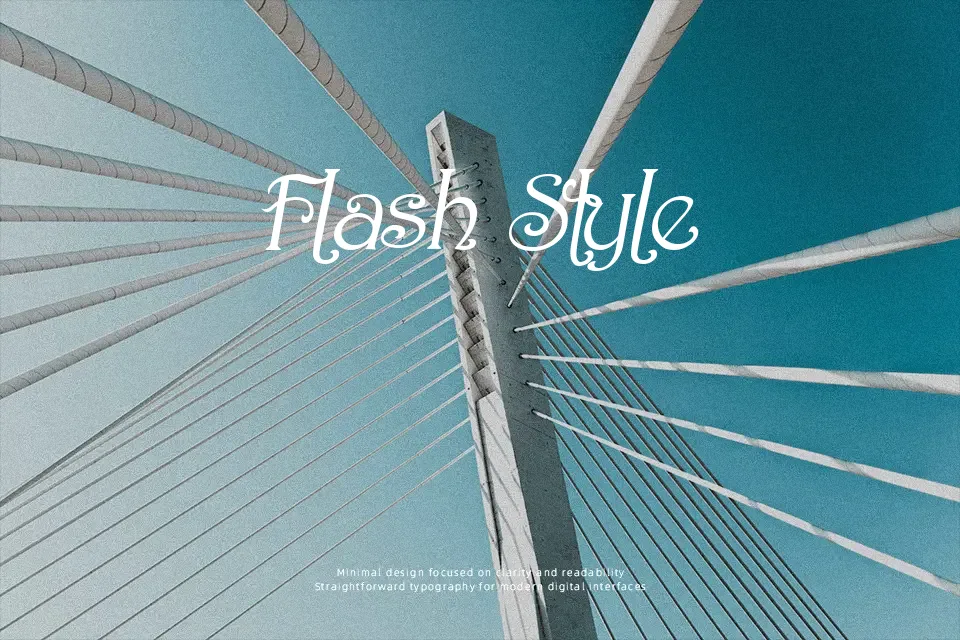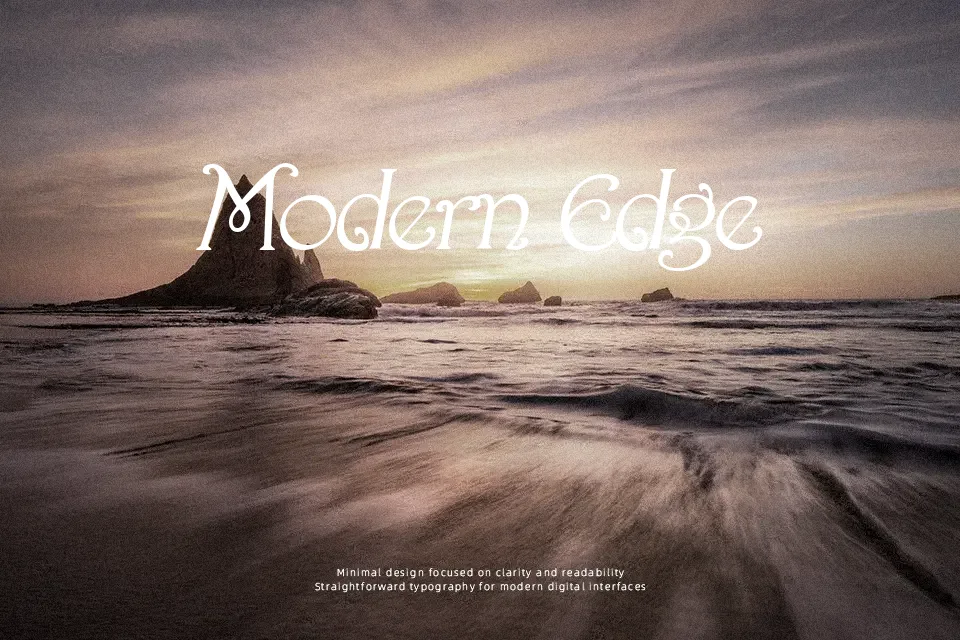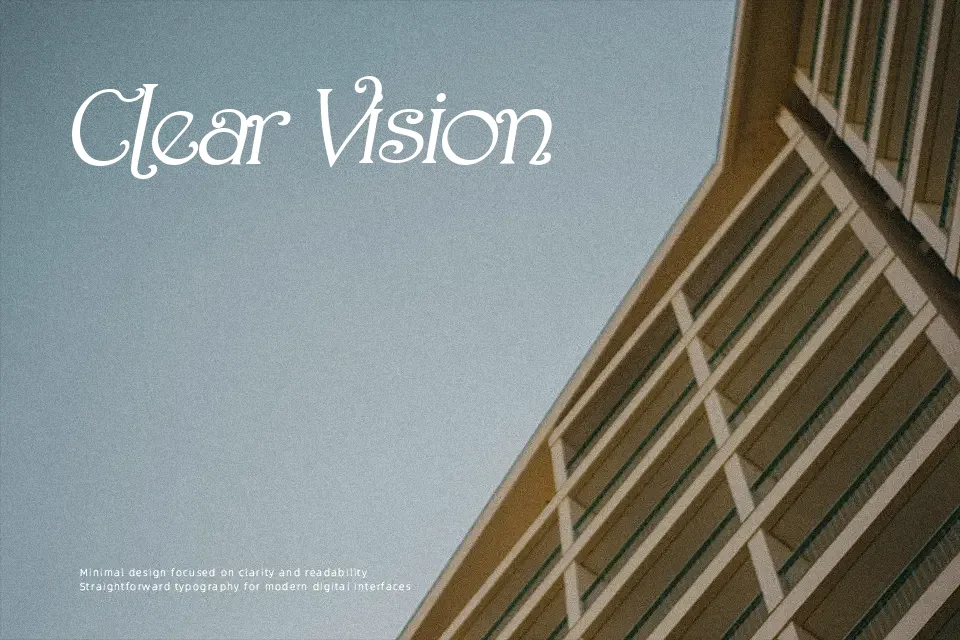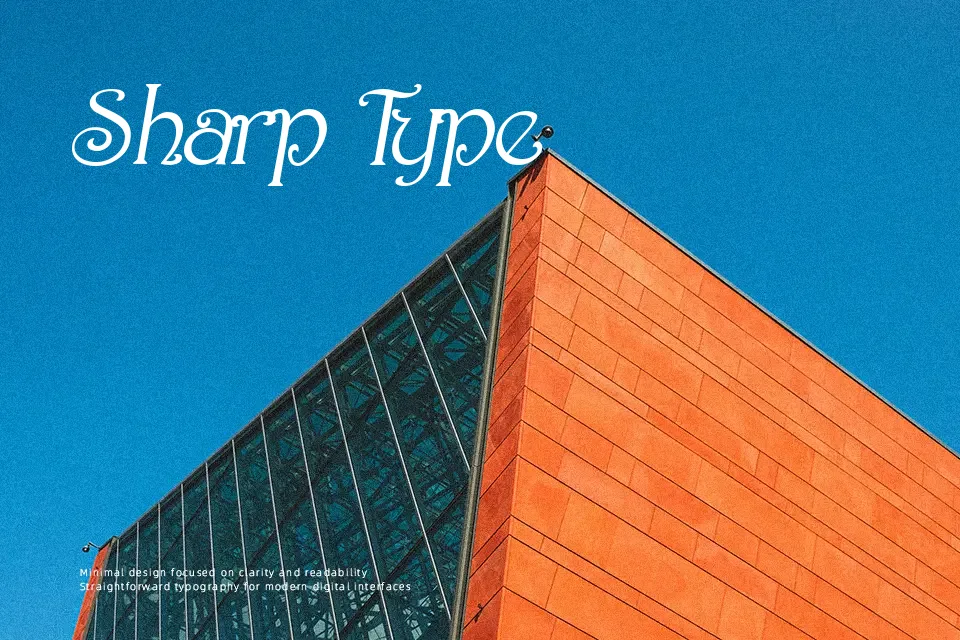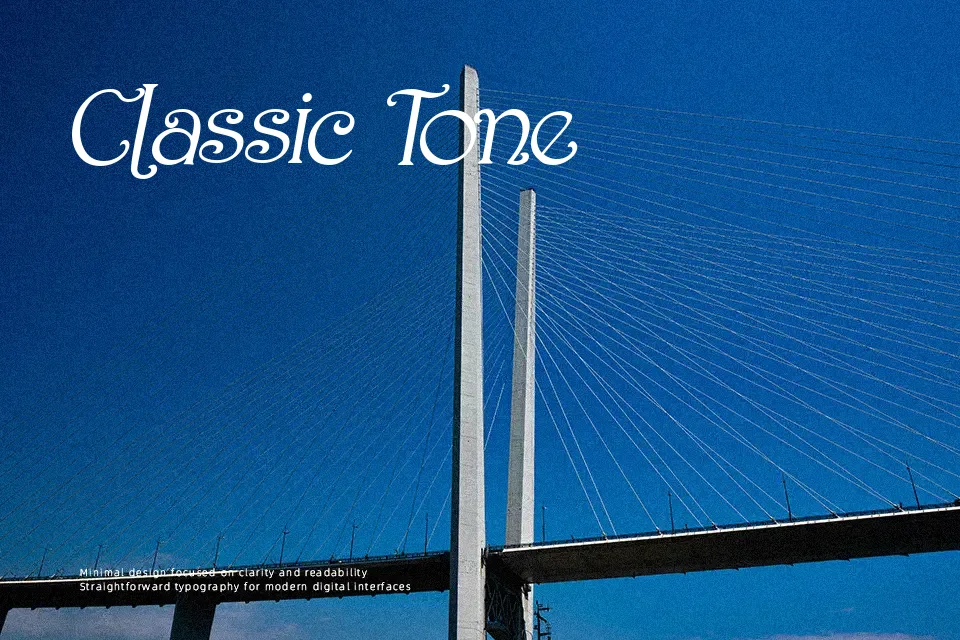
Alvens Font
Alvens leans into graceful, decorative serif forms with curling terminals and ornamental swashes that draw the eye in short words and phrases. The strokes show moderate contrast, while the spacing stays fairly tight, so it reads more as a visual motif than as neutral text. It works well when you want a romantic or artistic headline on invitations, cards, packaging accents, or social content, especially paired with a simpler companion font for body copy. However, the ornate details quickly tire the eye in long paragraphs and can look fussy in very small sizes, so it is less usable for dense layouts or strict corporate identities. Choose it when you need an expressive accent, not when consistency and high-speed readability are the main goal.
wedding invitation titles
beauty or boutique logo wordmarks
romantic quote posts on social media
gift card and packaging accents
formal corporate reports
data-heavy UI or dashboards
small captions or legal copy
Perfect for branding, invitation, and logo, with a artistic and decorative style.